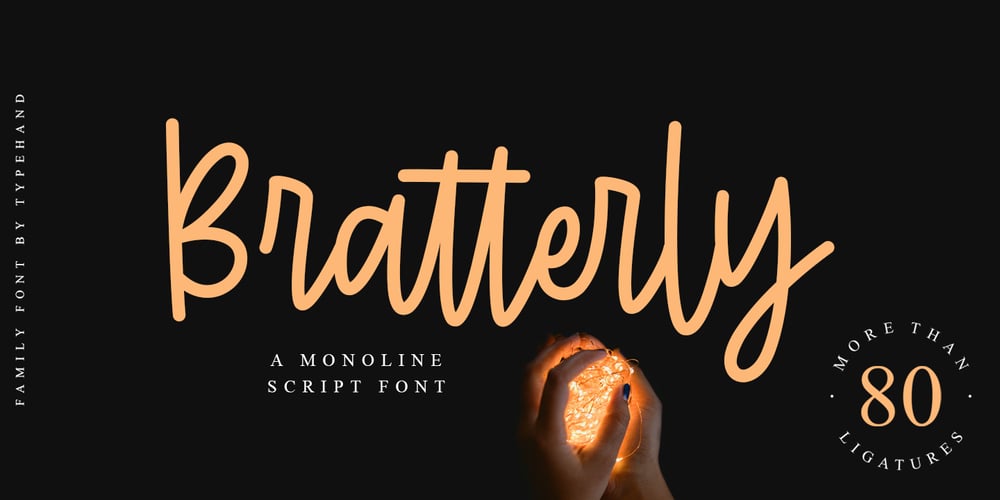
Bratterly
Bratterly font
Bratterly Font Family was designed by Ahmad Gozali and published by Typehand Studio. Bratterly contains 4 styles and family package options. Bratterly is a beautiful handwritten font containing upper & lowercase characters, numerals and a large range of punctuation.